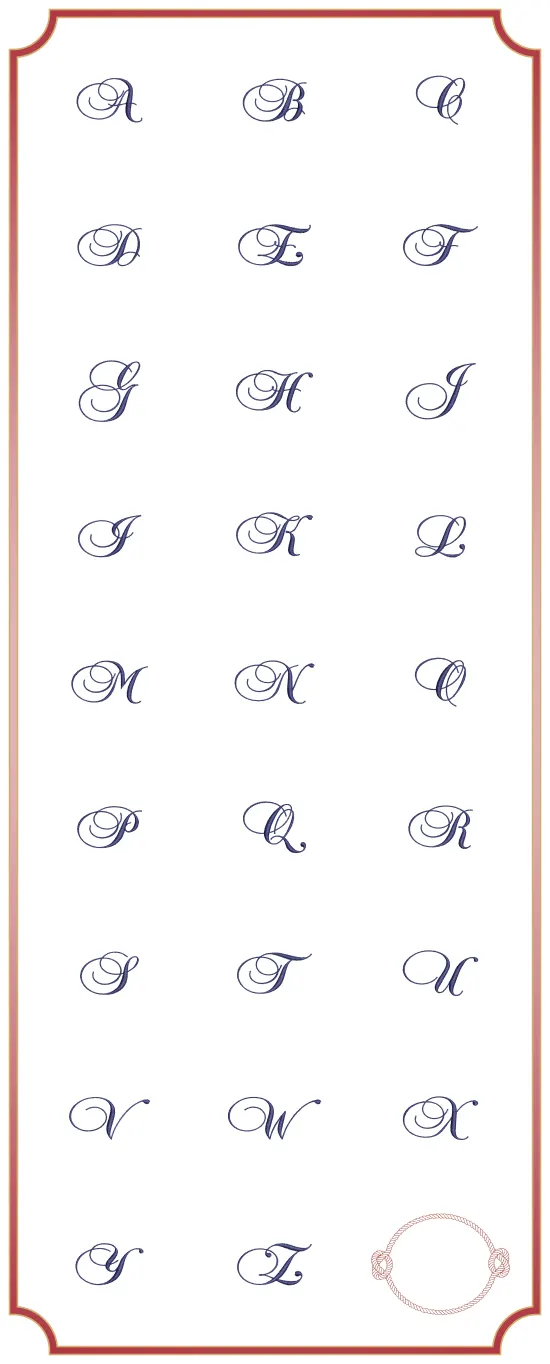
AHOY There Matey!!!
A right royal set of monograms with a rope frame befitting a slaty dog. Perfect to mark your bath robe, towels, face cloths and personel plunder.